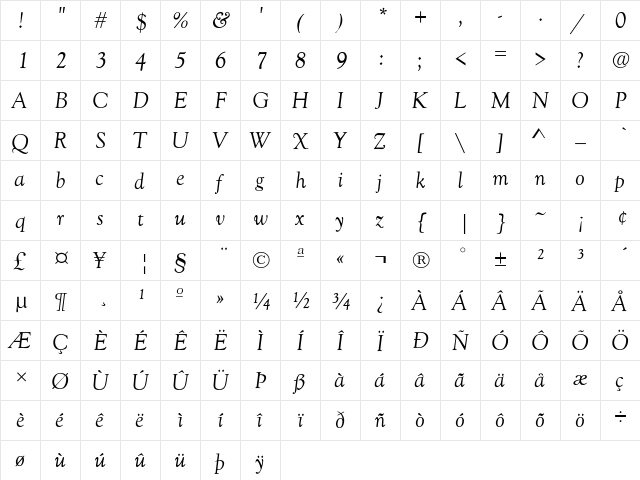
Goudy-Normal-Italic Regular
Design Context for Goudy-Normal-Italic Typeface
Goudy-Normal-Italic takes a measured approach to typography — its balanced proportions and neutral character make it a reliable workhorse for both digital and print work. The slanted form adds forward momentum and visual energy.
Pro Tip: Use Goudy-Normal-Italic for emphasis, pull quotes, and subheadings where its slanted energy can add rhythm to the layout.